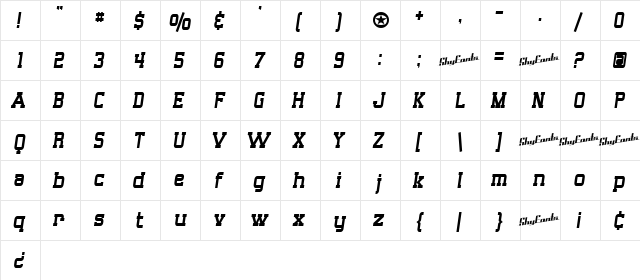
SF Big Whiskey Condensed Regular
Design Context for SF Big Whiskey Condensed Typeface
SF Big Whiskey Condensed is a composed and adaptable typeface that performs quietly and consistently across a wide range of design contexts. The condensed width makes it efficient for tight spaces without sacrificing legibility.